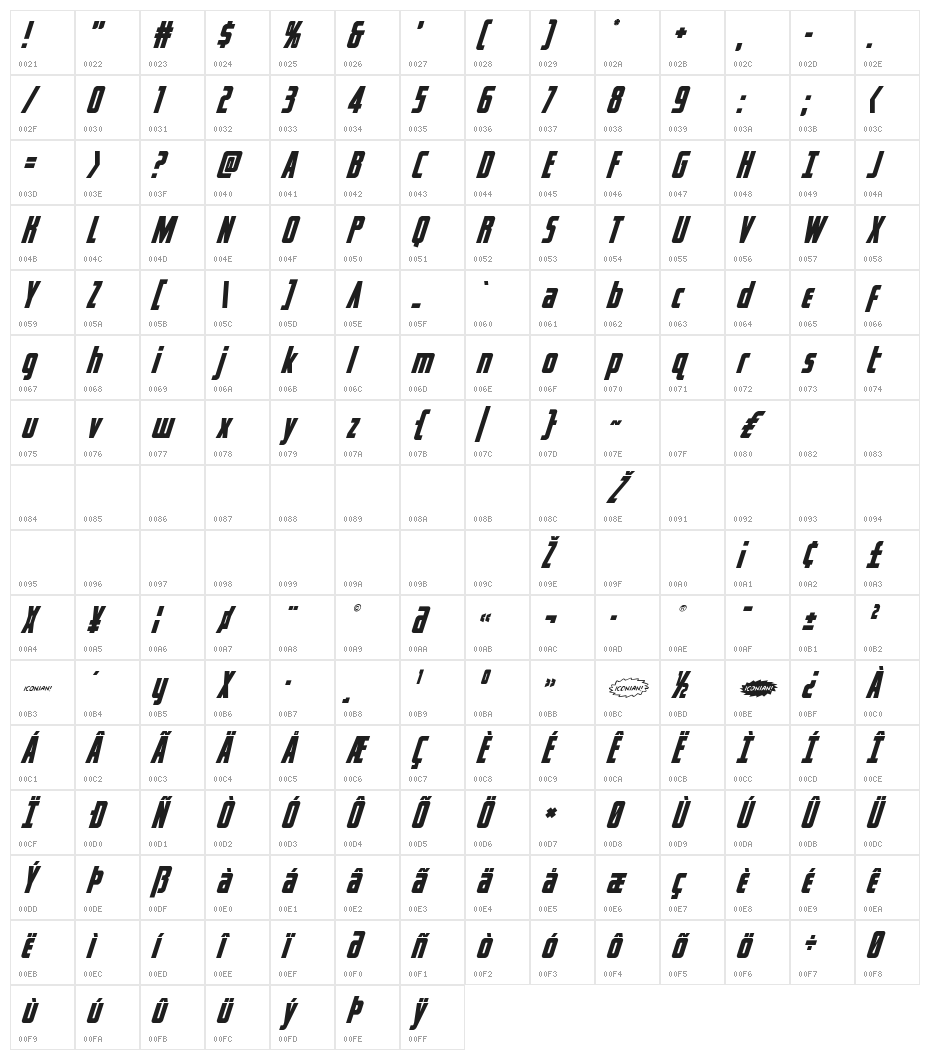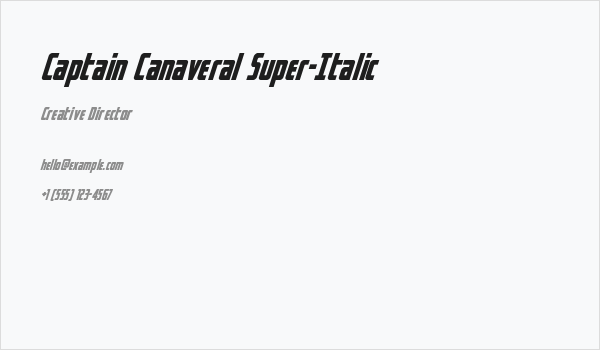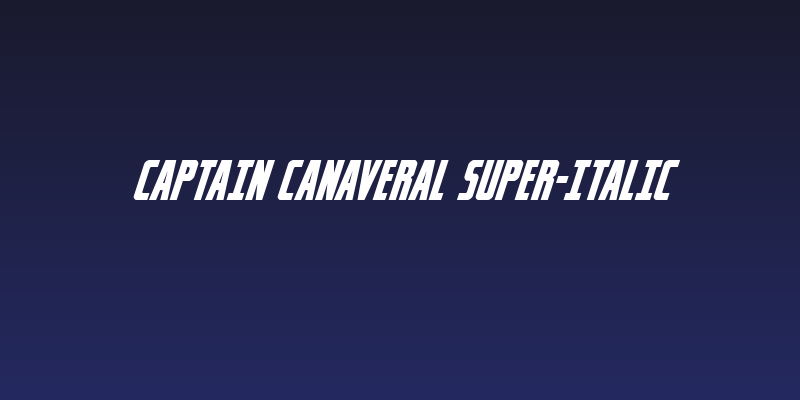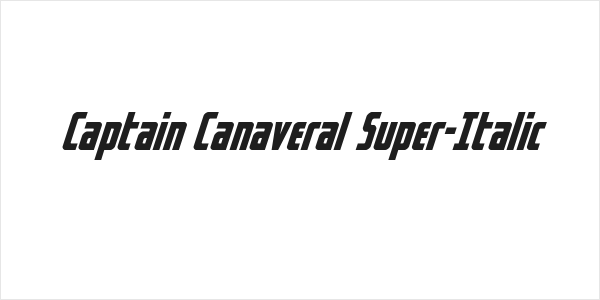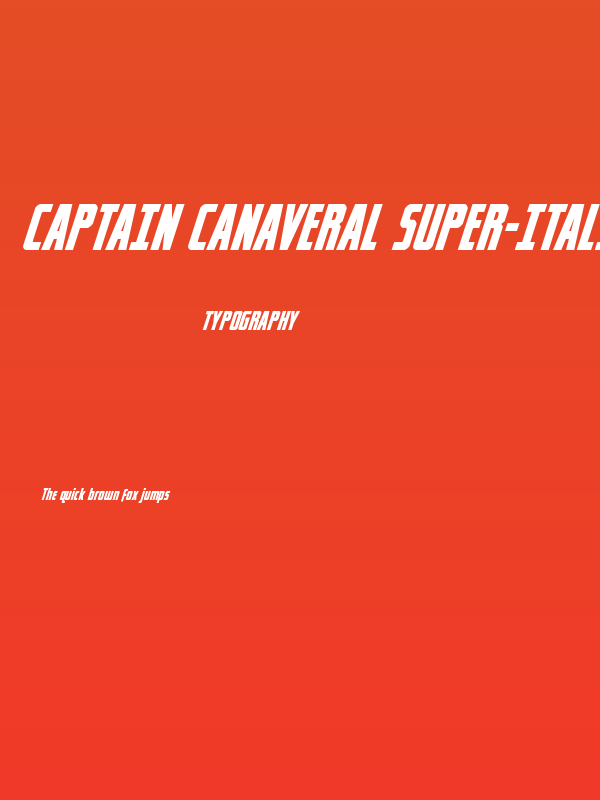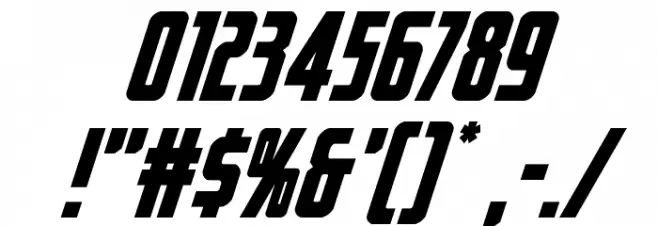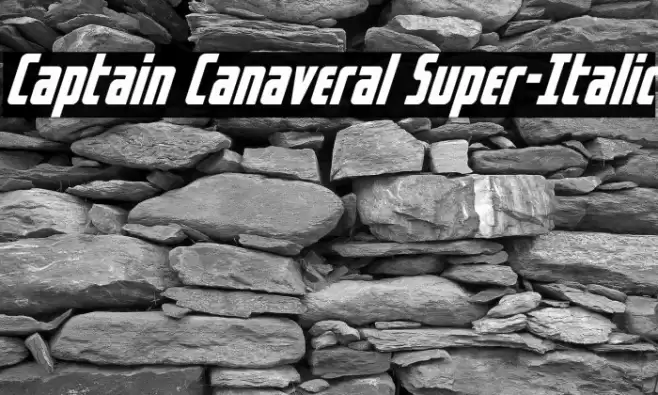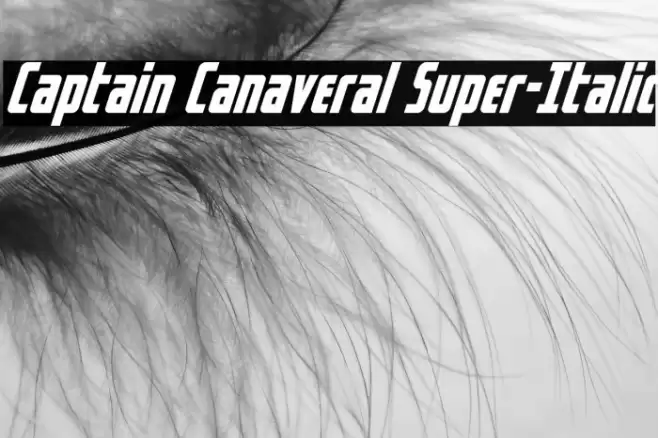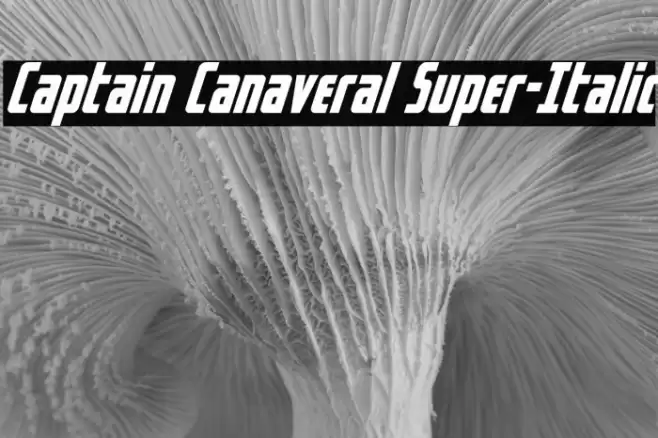
Captain Canaveral Super-Italic Font
Captain Canaveral Super-Italic Description
This font features a dynamic and bold italic style, characterized by its strong, angular lines and sharp edges. Each letter leans forward, creating a sense of motion and urgency. The uppercase and lowercase letters maintain a consistent slant, enhancing the italic effect. The numbers and special characters follow the same design principles, ensuring uniformity across all glyphs. The font's boldness and slanted design make it ideal for attention-grabbing headlines and impactful statements.
| Proposed Projects | Ideal for sports branding, dynamic posters, and modern advertising campaigns. |